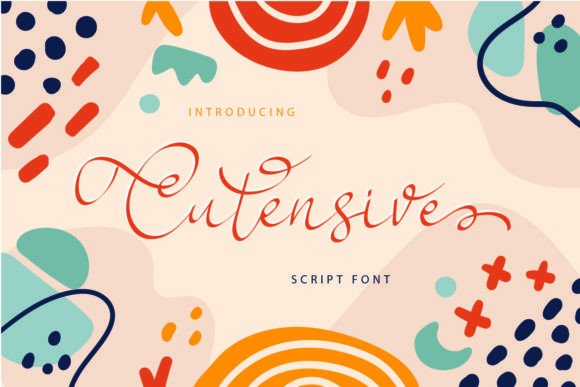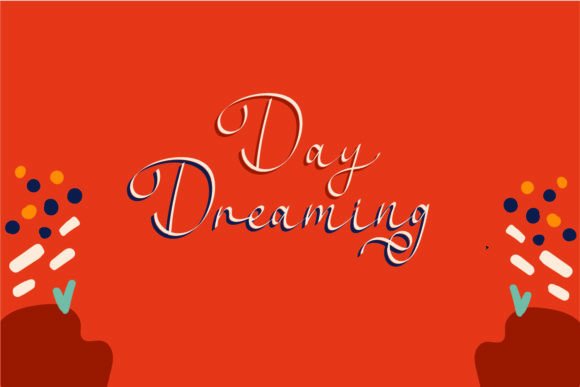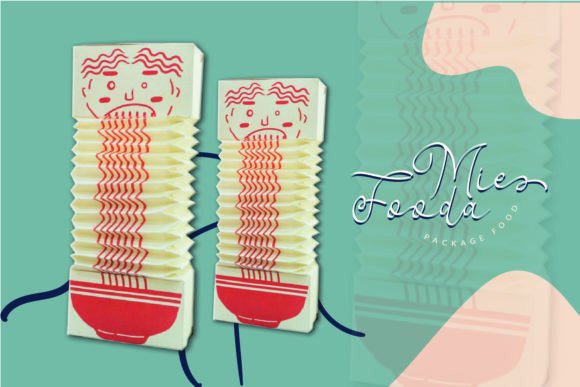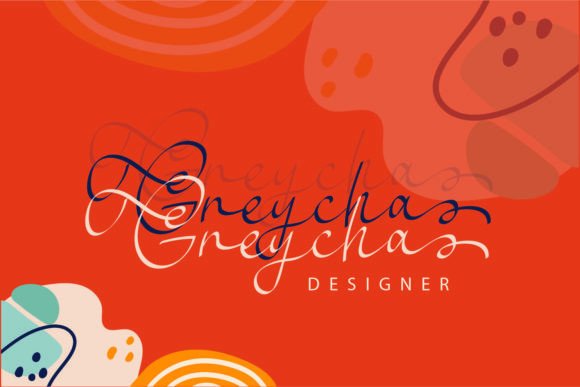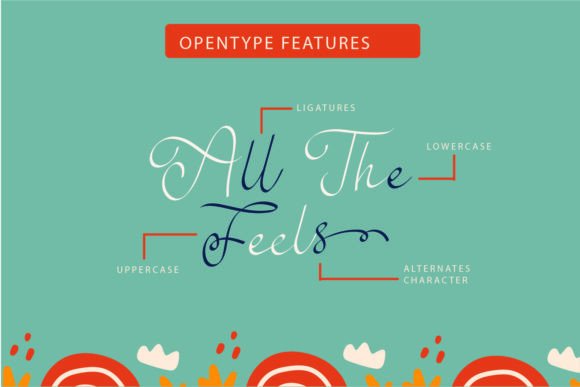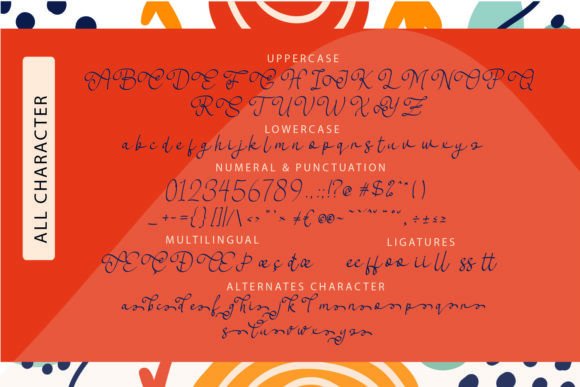
A Modern and Cool Handwritten Script
Cutensive is a modern handwritten script font that combines elegance with a cool, contemporary vibe. Its clean, flowing strokes and unique character give it a timeless yet fresh feel, making it a perfect choice for any project that needs a stylish handwritten touch.
Whether you’re working on branding, invitations, or social media graphics, Cutensive brings a distinct flair to your designs. Its versatility makes it suitable for both formal and casual projects.
Cutensive is highly versatile, making it ideal for a variety of creative uses. It’s perfect for logos, business cards, and branding materials. The font’s bold yet refined style makes your brand stand out, offering a modern, memorable look.
This font also works beautifully for wedding invitations, greeting cards, and event materials. Its timeless elegance adds a sophisticated touch to any special occasion.
Cutensive is perfect for social media graphics, blog headers, and promotional materials. Its unique handwritten design ensures that your content grabs attention and stays memorable.
Despite its artistic design, Cutensive remains legible at any size. The letter spacing is balanced, ensuring that your text is clear and easy to read, whether you use it for large headlines or smaller captions.
Pair Cutensive with a clean sans-serif font to create a stylish contrast. Use it for titles and combine it with a simple font for body text. This combination creates a visually striking and easy-to-read layout.
To highlight Cutensive’s cool, modern character, use bold backgrounds and clean, minimalist layouts. Shades like deep gray, ivory, or soft pastels allow the font’s distinctive design to stand out without distraction.
For wedding designs, luxury branding, or product packaging, consider adding elegant accents that complement the font’s refined feel. For social media graphics and marketing materials, keep your design simple and let the font shine as the centerpiece.
Think about the mood you want to create. Cutensive is perfect for designs that need to feel bold, contemporary, and full of personality, while still being approachable.
Cutensive is more than just a modern handwritten script. It’s a creative tool that brings elegance and personality to any design. Its clean lines and bold strokes make it ideal for a wide range of creative applications.